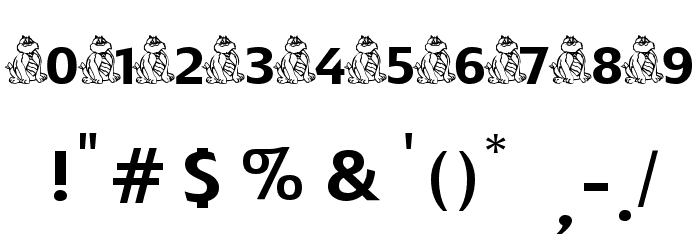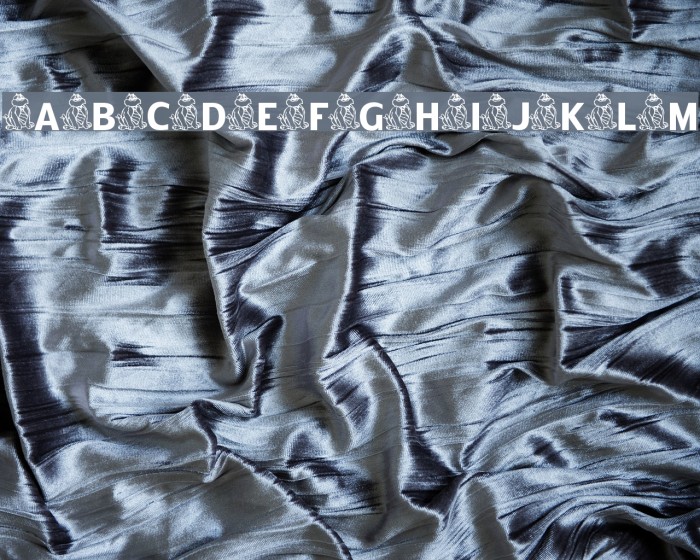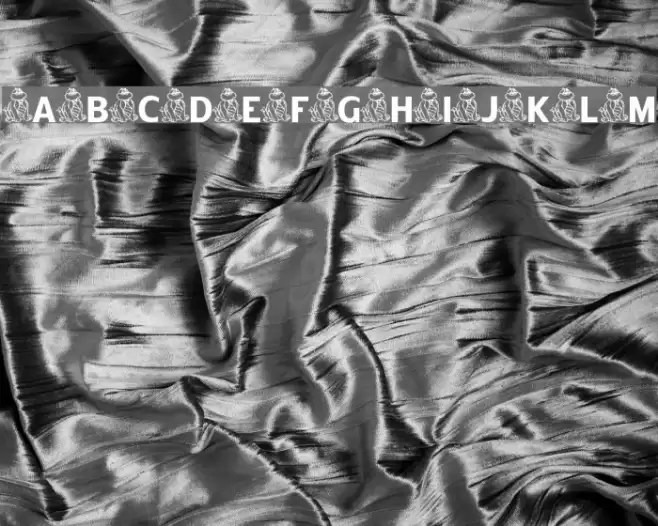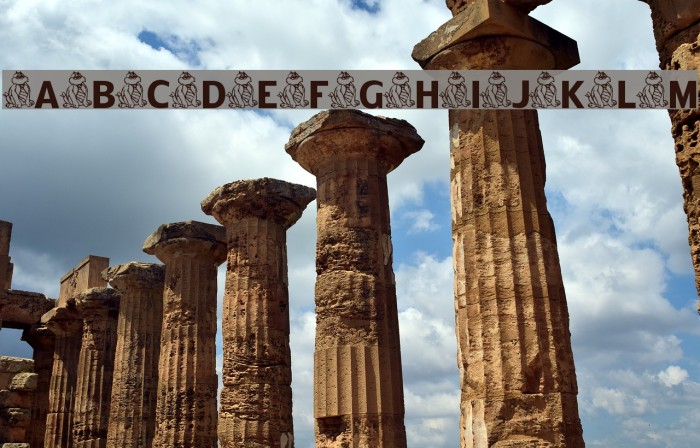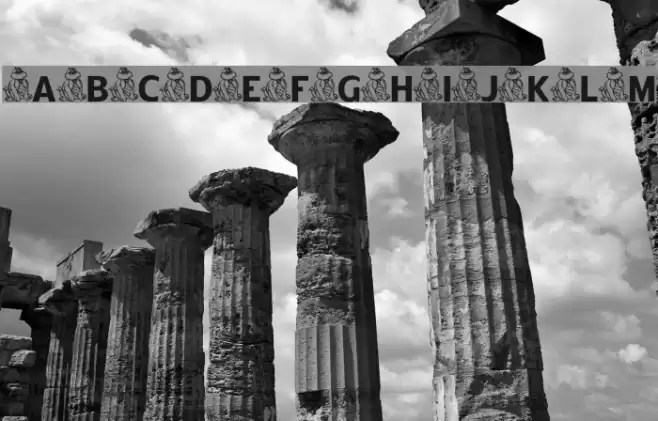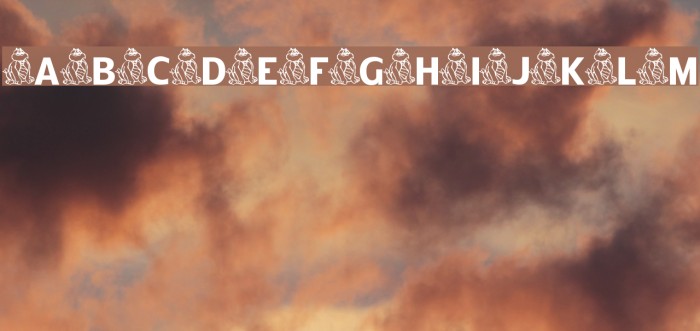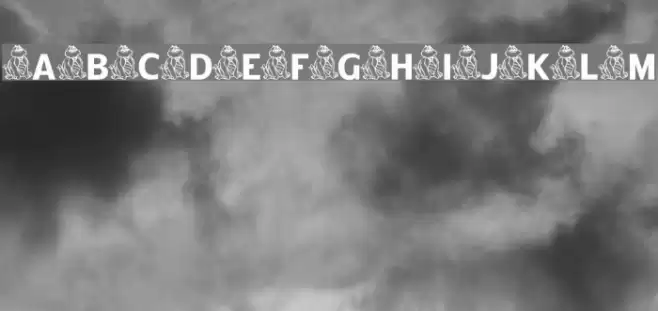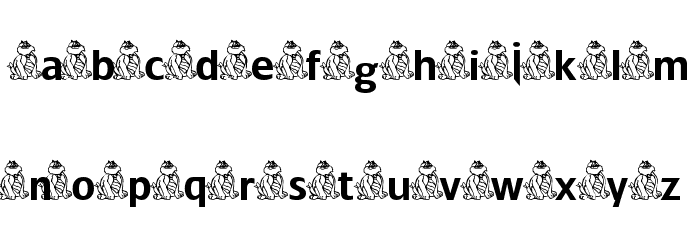
CoolFatCat Font
CoolFatCat Description
This playful and whimsical font features bold, uppercase and lowercase letters accompanied by a charming cat illustration integrated into each character. The design is both unique and eye-catching, making it perfect for projects that require a touch of fun and creativity. The letters are well-defined with a consistent thickness, providing a clear and readable appearance despite the decorative element. The font includes a full set of numerals and a variety of special characters, maintaining the same playful theme throughout. The combination of bold lettering and the cat motif creates a distinctive style that stands out.
| Use Case | Logos, Headlines, Posters |
| Proposed Projects | Ideal for children's books, playful branding, pet-related products, and creative posters. |